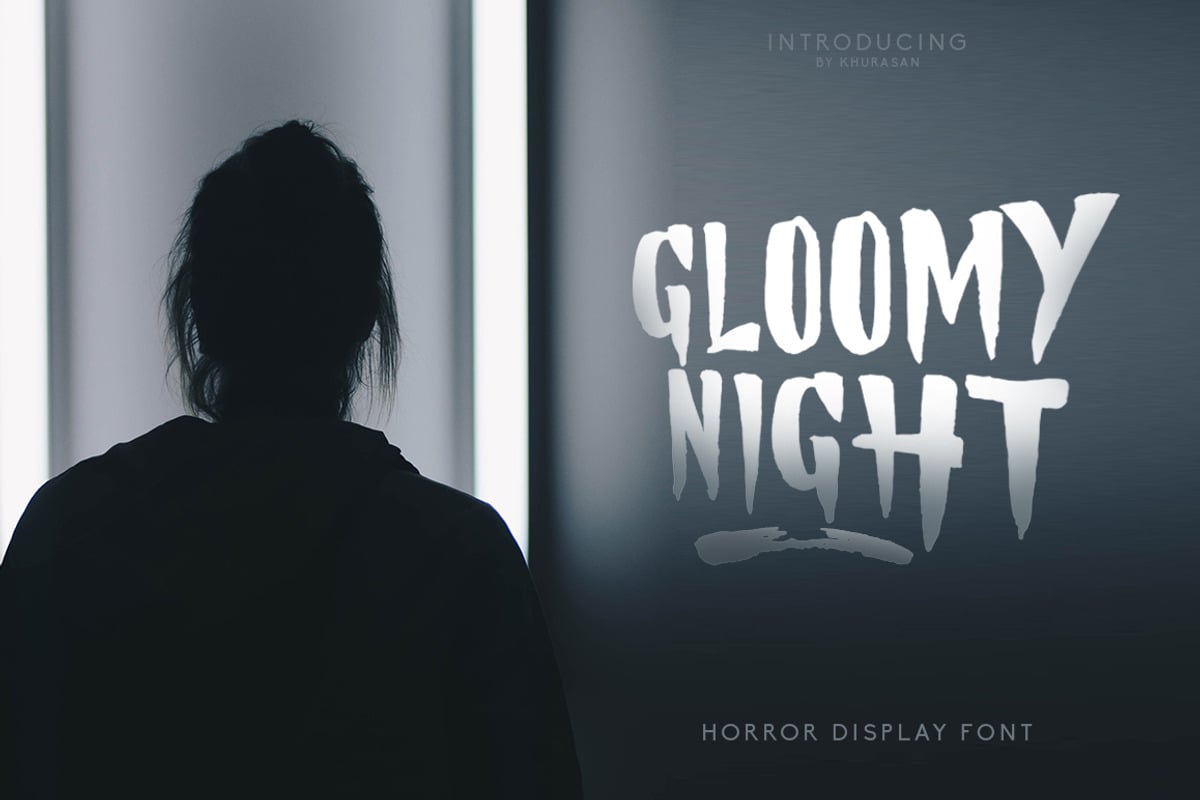
Gloomy Night Display Font
Unleash spine-chilling designs with Gloomy Night, the quirky horror display font that commands attention! This fun marker pen font brings a rough, edgy approach that's perfect for projects that need to stand out from the crowd. Its distinctive quirky style and gritty feel make it ideal for creating memorable, impactful designs. Files included: Gloomy Night.otf Gloomy Night.ttf Gloomy Night Swash.otf Gloomy Night Swash.ttf Bonus Halloween Party Vector (ai cs6 or higher & png) Tutorial links f...